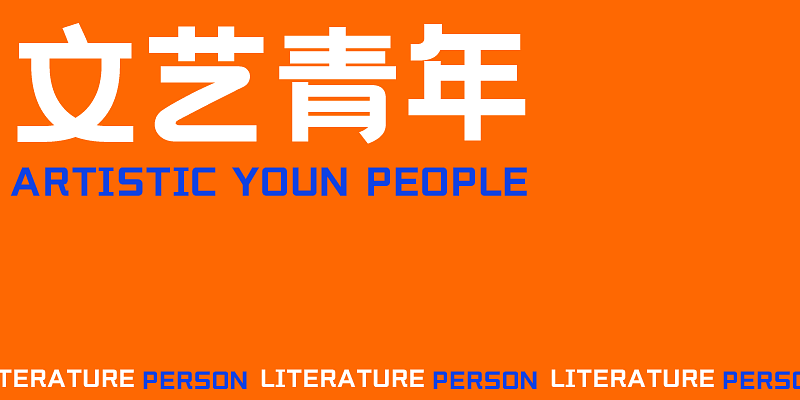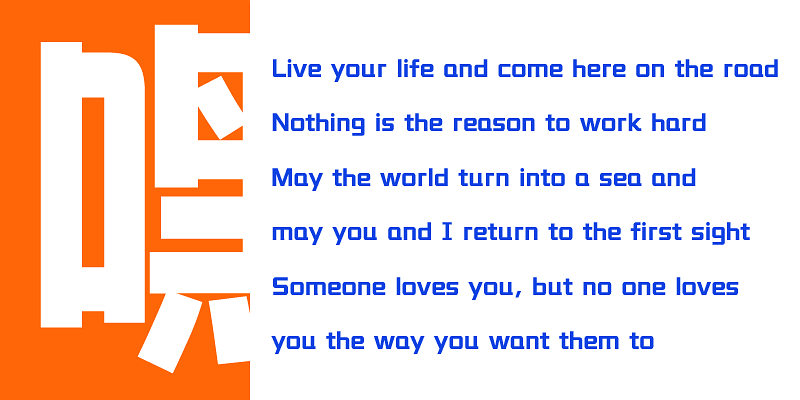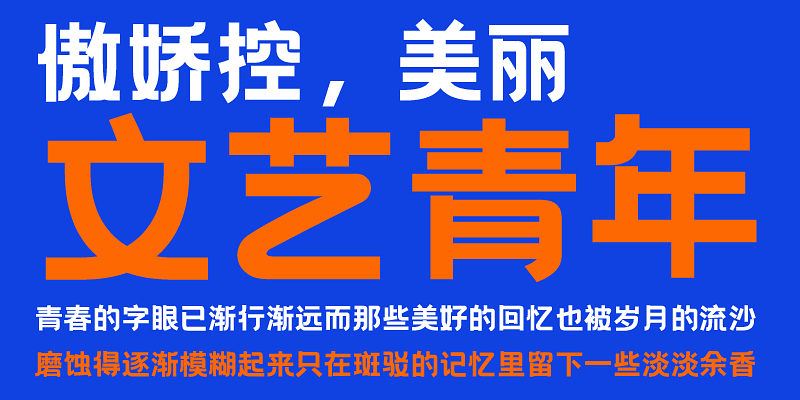
This font incorporates the principles of graphic design into Hēi Tǐ. Through an elegant arcing process, the structure of the typeface is square and full of tension.